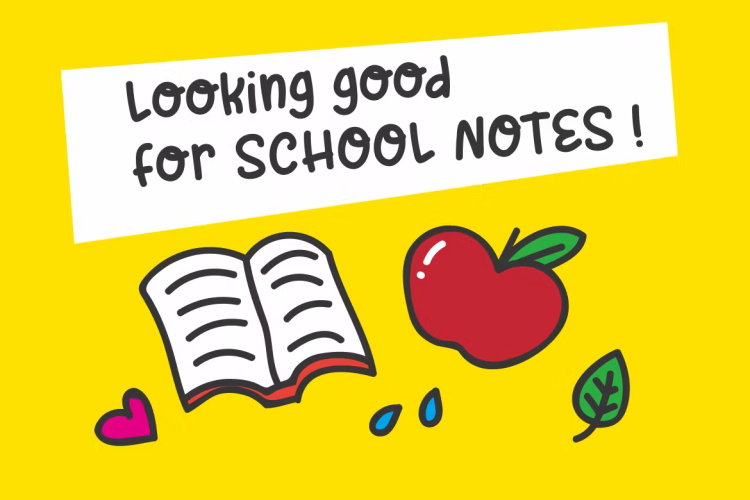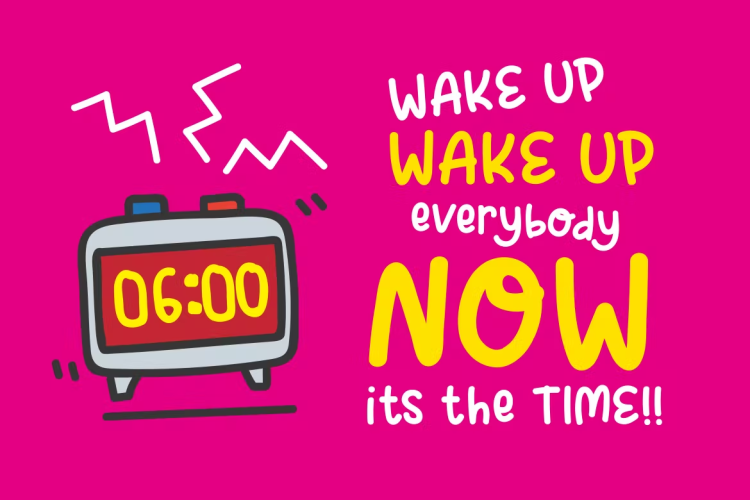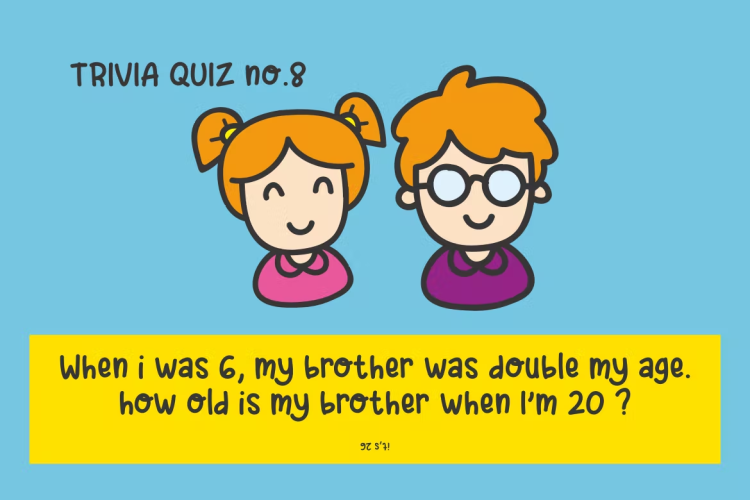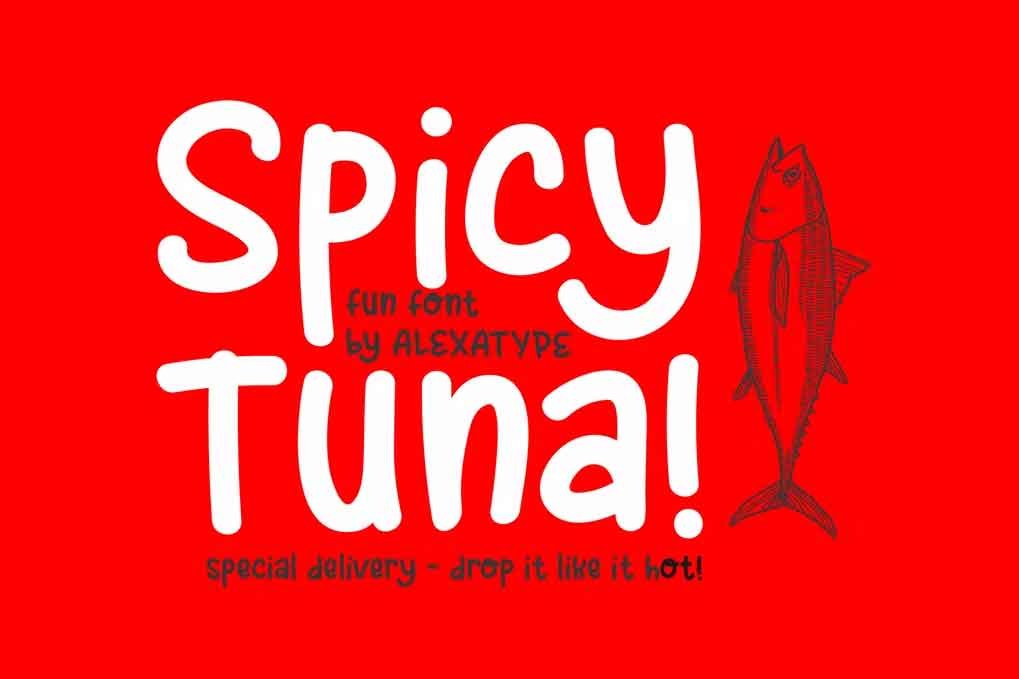
Spicy Tuna Font
Spicy Tuna – fun children font Spicy Tuna, comes with rounded shape emphasizing the fun and friendliness they bring. Perfect for any fun project, schools, children relat…
Spicy Tuna – fun children font
Spicy Tuna, comes with rounded shape emphasizing the fun and friendliness they bring. Perfect for any fun project, schools, children related, or even a cafe and restaurant menu.
Where Spicy Tuna Font works best
Spicy Tuna Font brings a personal, handwritten warmth to invitations, menus and place cards.
Craft brands — coffee, cosmetics, bakery — use scripts like Spicy Tuna Font for signature-style logos and labels.
Pair Spicy Tuna Font with a plain sans for quotes, stories and Pinterest pins that feel handmade.
What is Spicy Tuna Font good for?
Spicy Tuna Font is a Script And Handwritten typeface tagged Handwritten, Professional, Rounded, Script. It works well for headlines, logos, posters, social media graphics and branding projects that need a distinctive script and handwritten look.